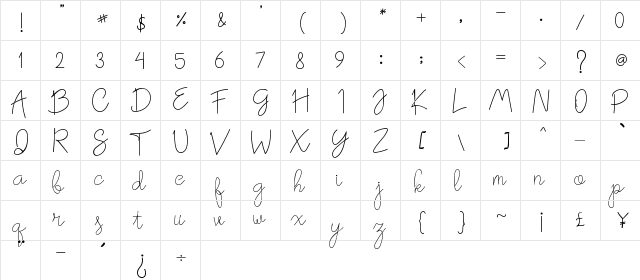
oh candy Regular Font Preview
oh candy Regular
oh candy Regular Font Details
| Designer | Amin Mario Studio.Indonesia |
Design Context for oh candy Typeface
oh candy takes a measured approach to typography — its balanced proportions and neutral character make it a reliable workhorse for both digital and print work.